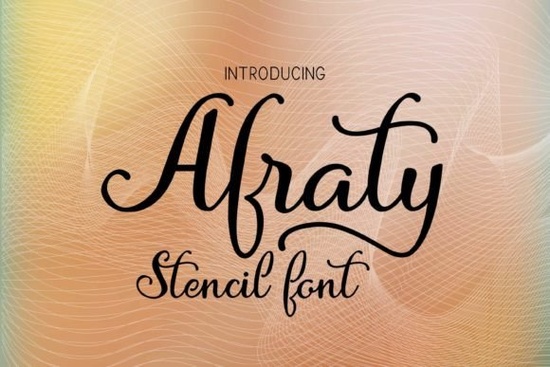
Afraty Stencil Font
If you work with stencils, vinyl cutting, or any project that requires open letterforms, you’ve probably run into the common problem of closed loops. Most script fonts have enclosed counters (the inside of letters like a, b, d, p), which fall out when you cut them. The Afraty Stencil Font solves that by keeping all characters open no loops, no lost pieces. It’s a modern script with a handmade calligraphy style that feels natural for branding, wedding invitations, and craft projects. Because the letters are designed without closed areas, you can use it straight out of the box for stencils, laser cutouts, or CNC routing without extra editing.
Why does a font with no closed loops matter for stencil and cutout projects?
When you cut a letter like “a” or “e” from a traditional script font, the inside part (the counter) often drops out or gets lost. That makes the letter look broken or incomplete. Afraty’s open design means every letter is a single continuous shape. This makes it ideal for vinyl decals, stenciled signs, leather stamps, and paper cutouts. You can also use it with a Cricut or Silhouette without needing extra steps to close letters manually.
How does Afraty Stencil Font compare to other script fonts for wedding invitations?
Many wedding invitation fonts are delicate scripts with thin swashes. While beautiful, they often fail when cut out or used as actual stencils. Afraty keeps the elegance of a real calligraphy pen stroke but uses a sturdier stroke width and open counters. It works well on invitation envelopes, save-the-date cards, and table number tags. If you need something more formal, you might also consider the Rustic Wedding Font for a vintage feel or the Glowing Font for a modern neon-style look.
Can you use Afraty Stencil Font for branding and small business logos?
Absolutely. Its handmade, slightly irregular strokes give a personal, artisanal vibe. That works for coffee shop logos, handmade product labels, soap packaging, and bakery branding. Because the font reads clearly even in small sizes (thanks to the open design), it also works on business cards and social media graphics. If you want a cleaner, more modern script for branding, the Samantha Script Font could be a good complementary option.
How do you pair Afraty Stencil Font with other fonts in a design?
• Sans-serif all caps – Use a simple sans-serif like Montserrat or Oswald for subheadings or addresses. This balances the script’s organic feel.
• Thin line serif – For a more elegant look, pair it with a light serif like Playfair Display in body text or supporting lines.
• Another script – If you are doing layered designs, consider the Sunshine Flower Font for decorative swashes or floral elements.
What craft projects work best with Afraty Stencil Font?
The open letterforms make it a natural fit for physical media. Try it on:
• Wood signs (paint through a stencil or use a router)
• Fabric stenciling (t-shirts, tote bags)
• Glass etching (using adhesive stencil vinyl)
• Leather embossing
• Paper cutting with a die-cutting machine (like Cricut or Brother ScanNCut)
Because there are no thin hairlines, the font cuts cleanly without tearing. You can also adjust the stroke thickness using the font’s built-in alternates if the software supports OpenType features.
Is Afraty Stencil Font beginner-friendly for DIY crafters?
Quick checklist before using Afraty Stencil Font in your project
• ☐ Check your cutting machine settings – Use a “paper” or “cardstock” blade depth for vinyl, or a heavier setting for wood.